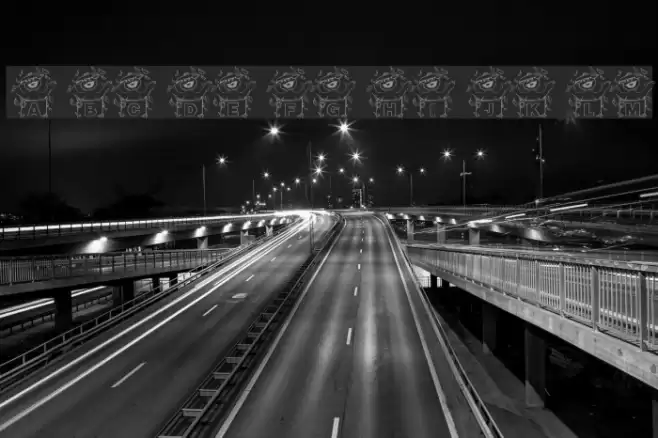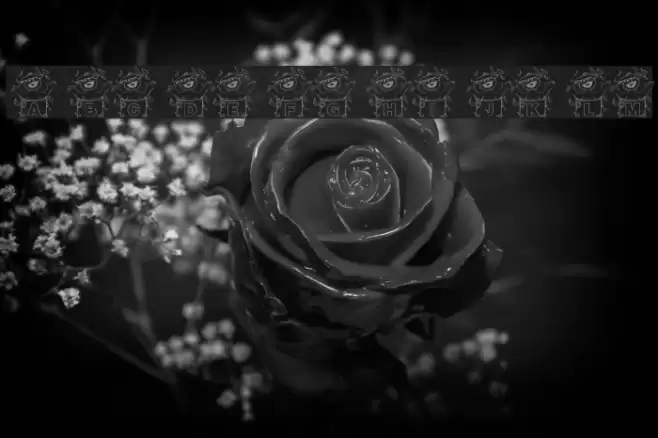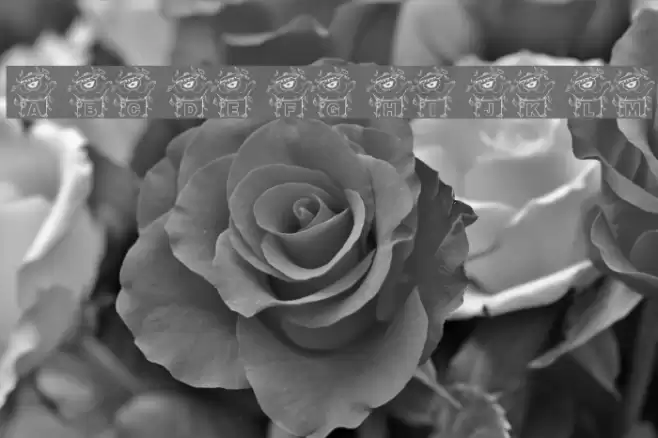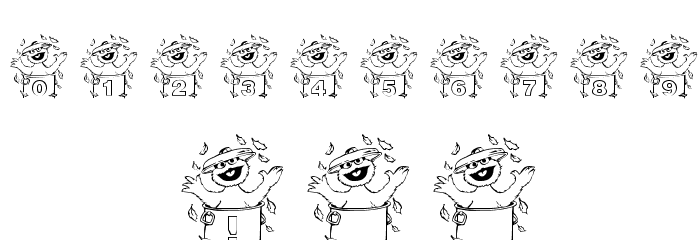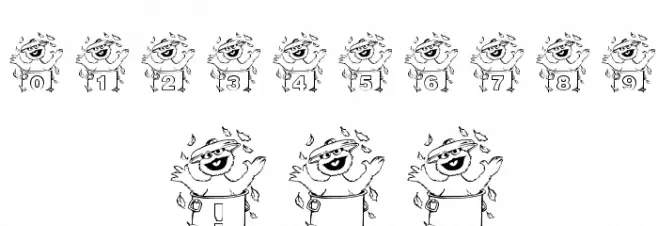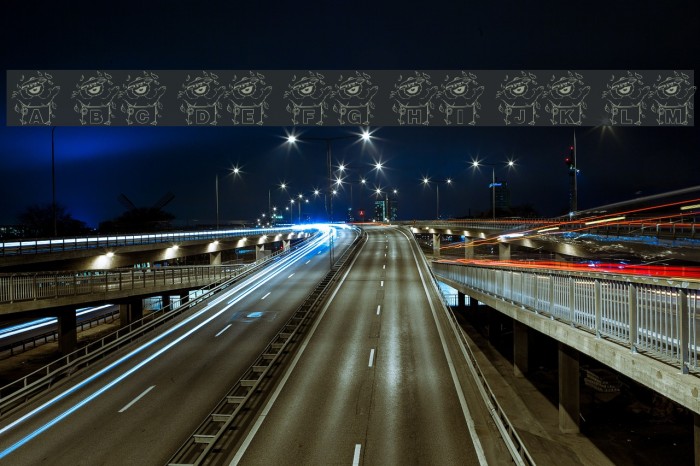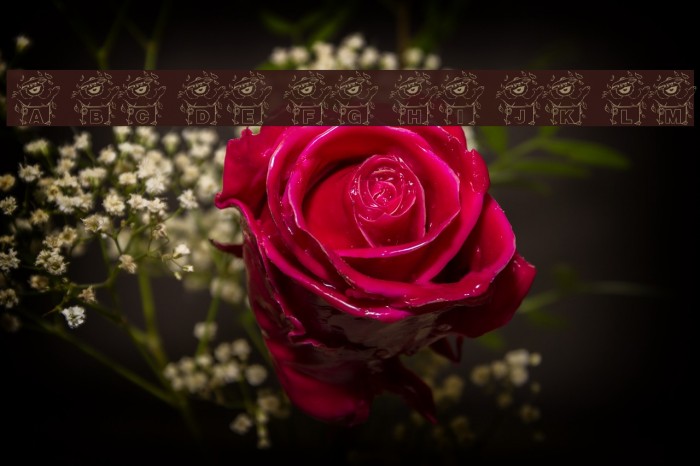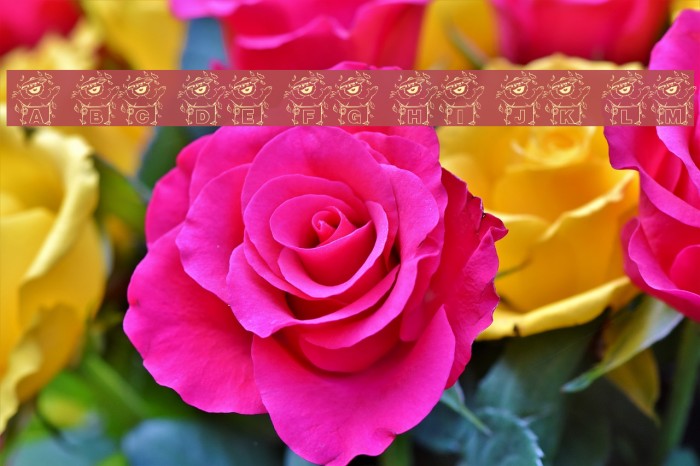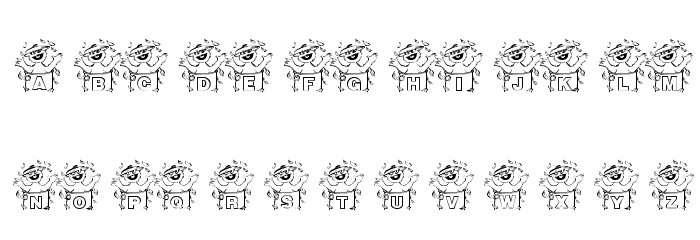
RMSSalpha Font
RMSSalpha Description
This font features a unique and playful design where each character is encased within a whimsical monster-like illustration. The letters and numbers are bold and clear, making them easily distinguishable despite the intricate surrounding artwork. The overall style is decorative and imaginative, with a cartoonish flair that adds a sense of fun and creativity. The characters are consistently styled, maintaining a cohesive look across the entire set. This font is perfect for projects that aim to capture attention and convey a playful or fantastical theme.
A playful, decorative font with characters encased in whimsical monster illustrations from Uncategorized fonts.
- Proposed Projects: Ideal for children's books, playful branding, themed party invitations, and creative posters.